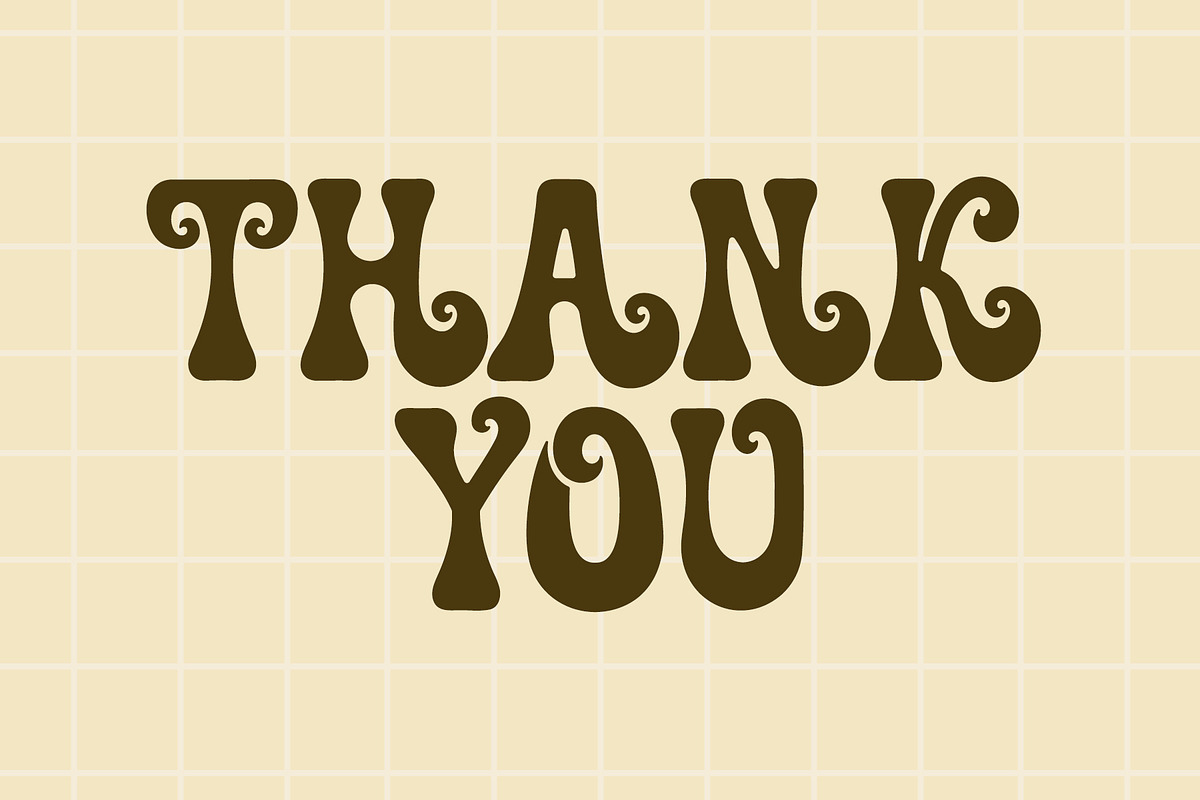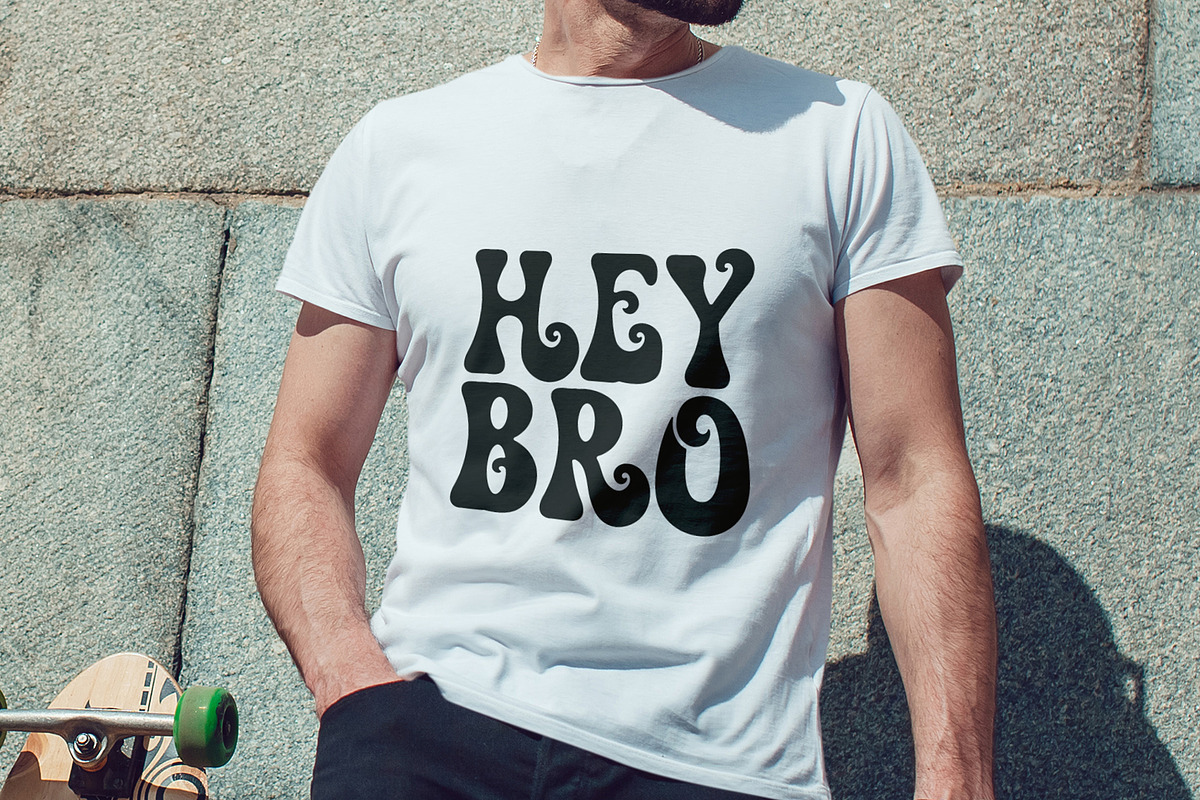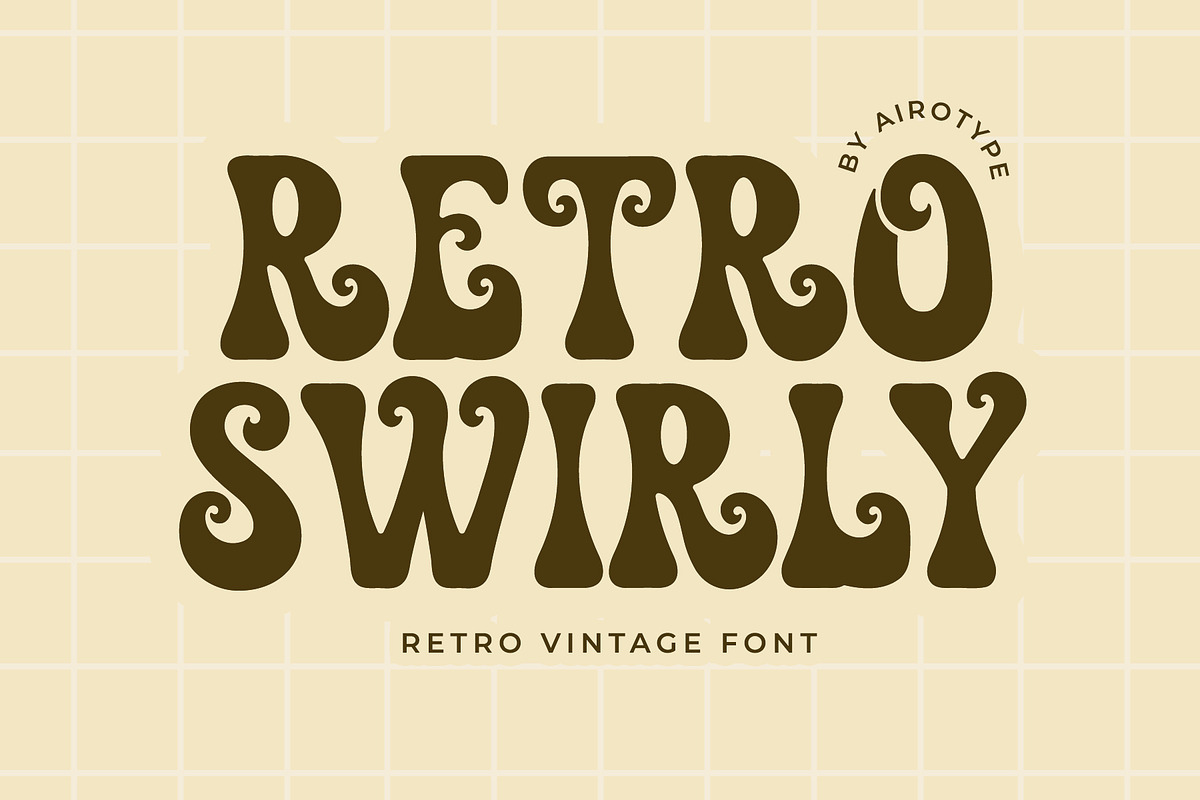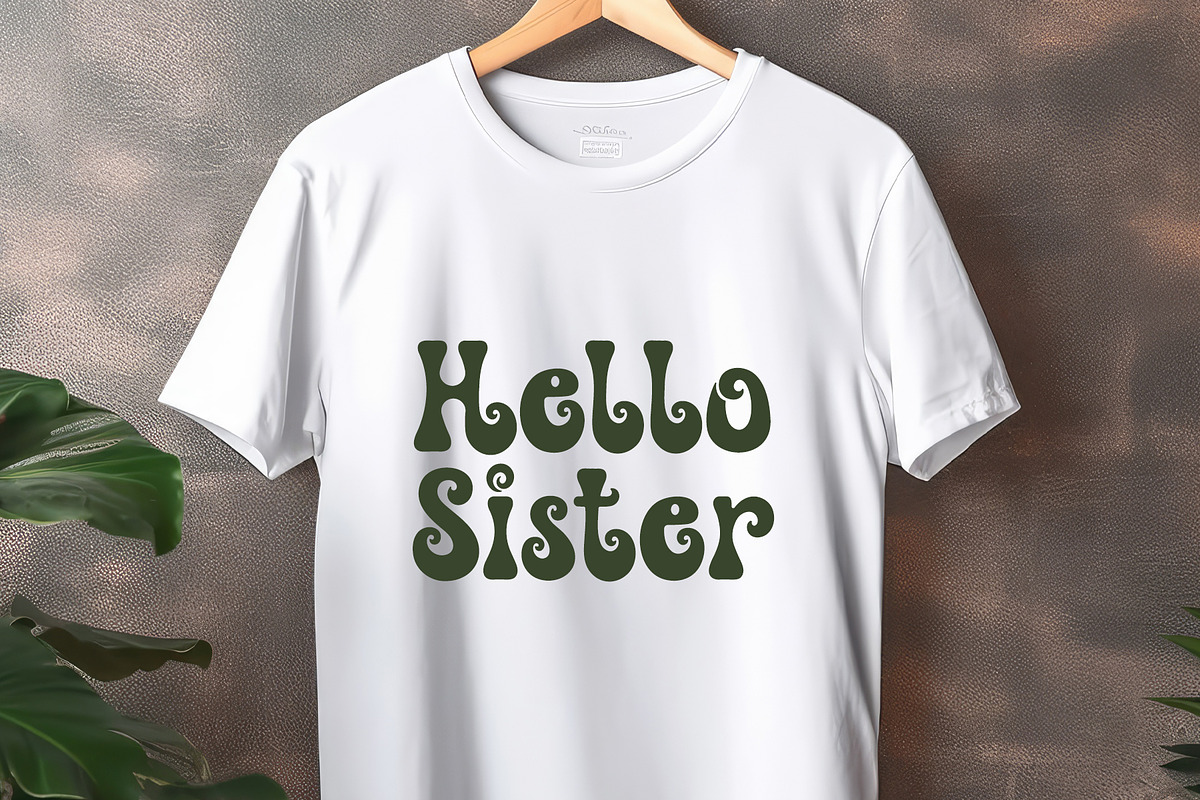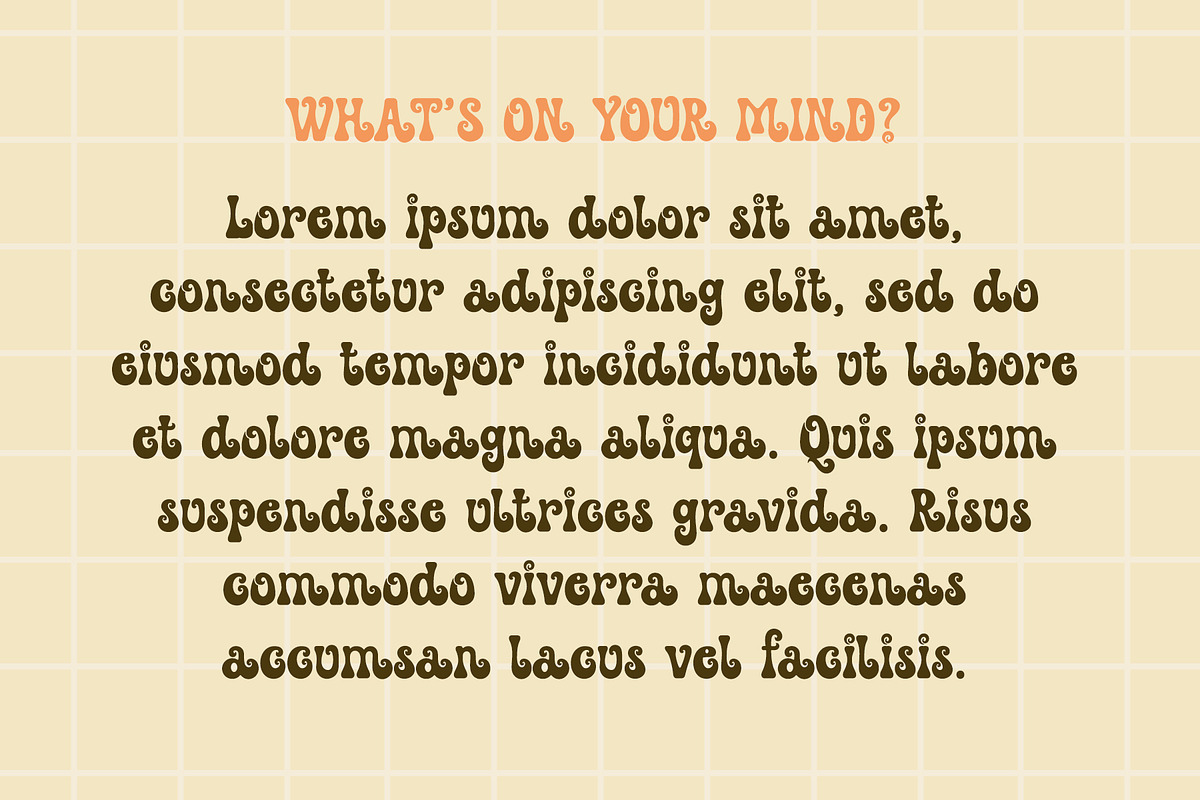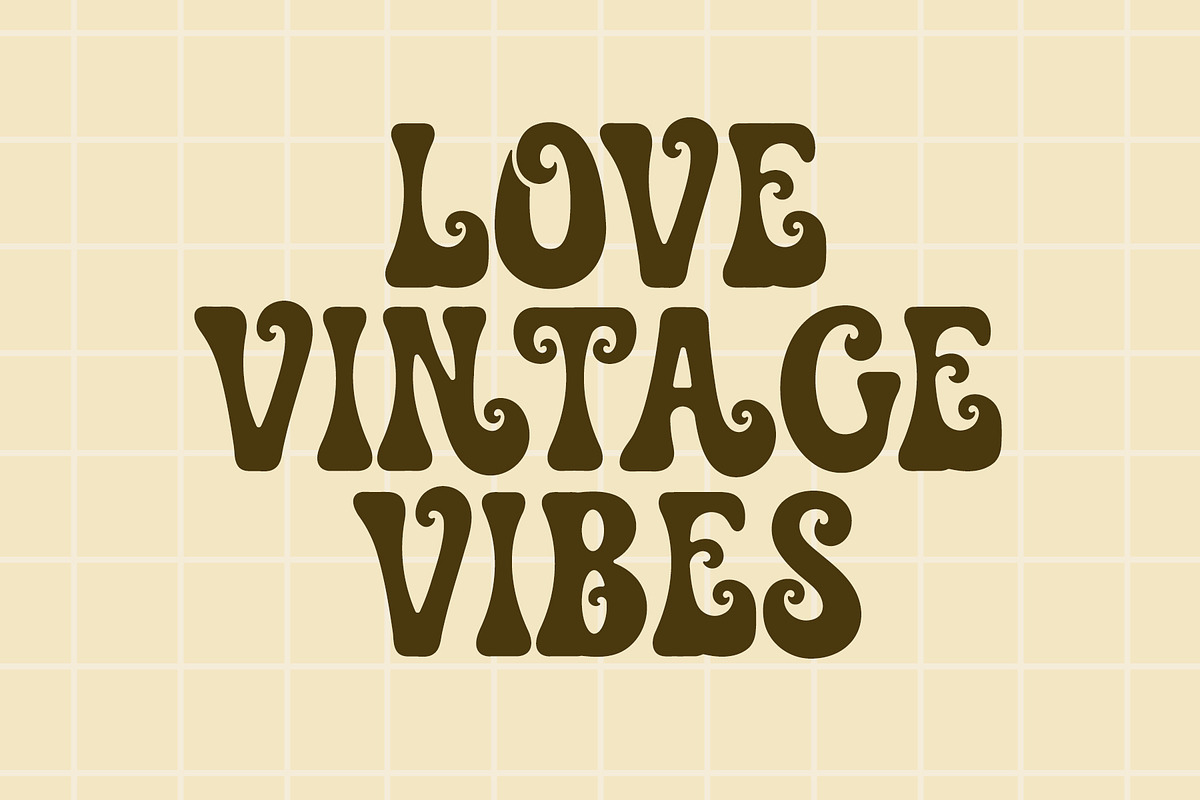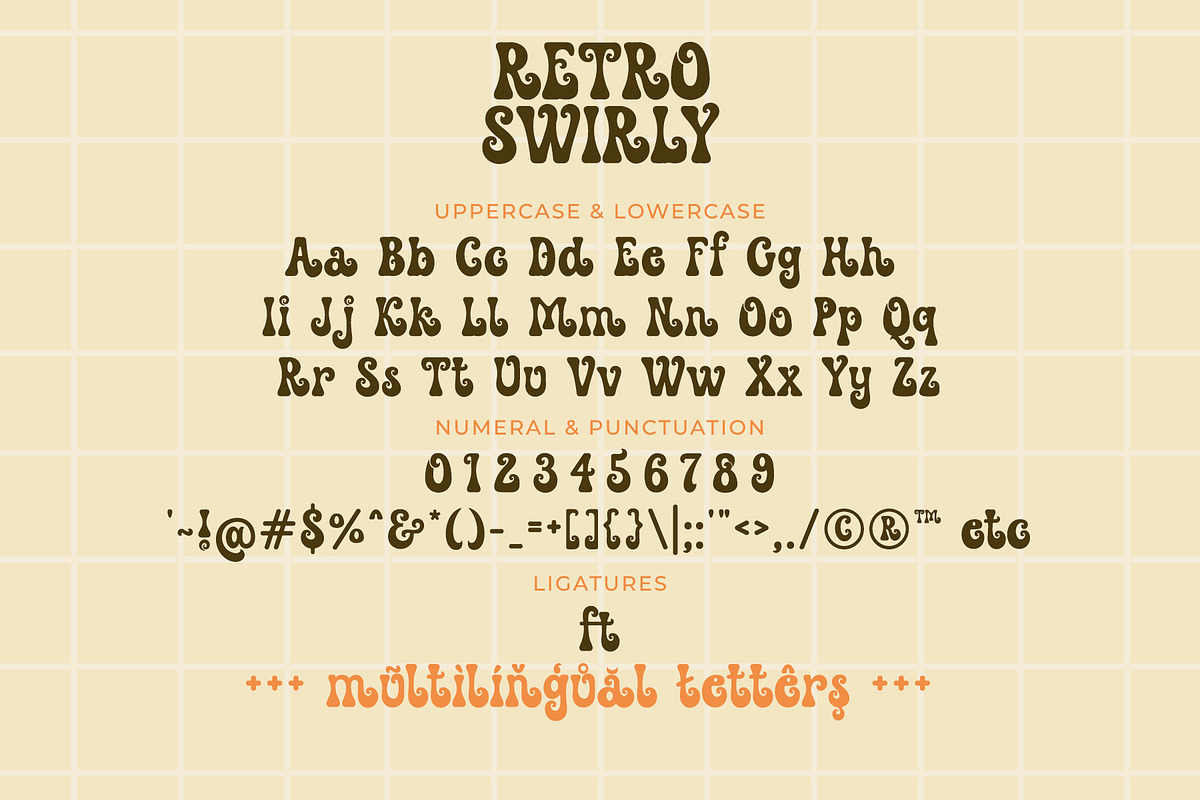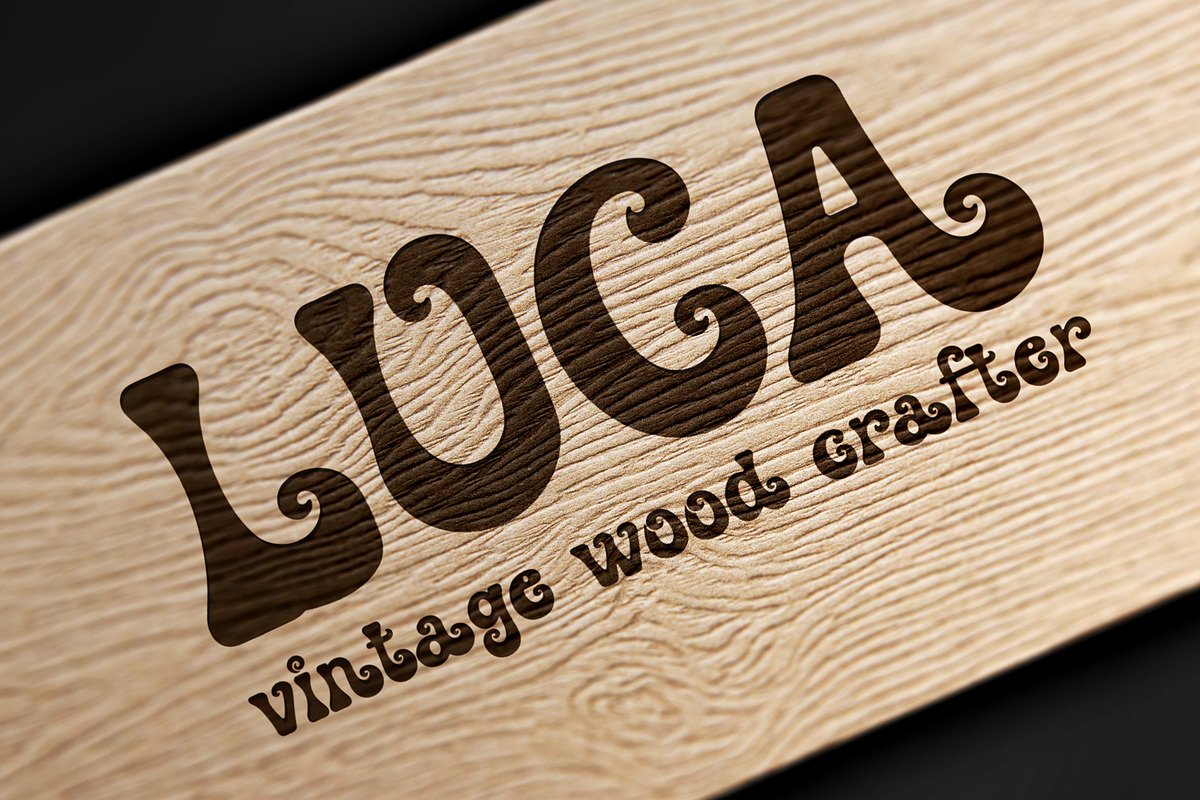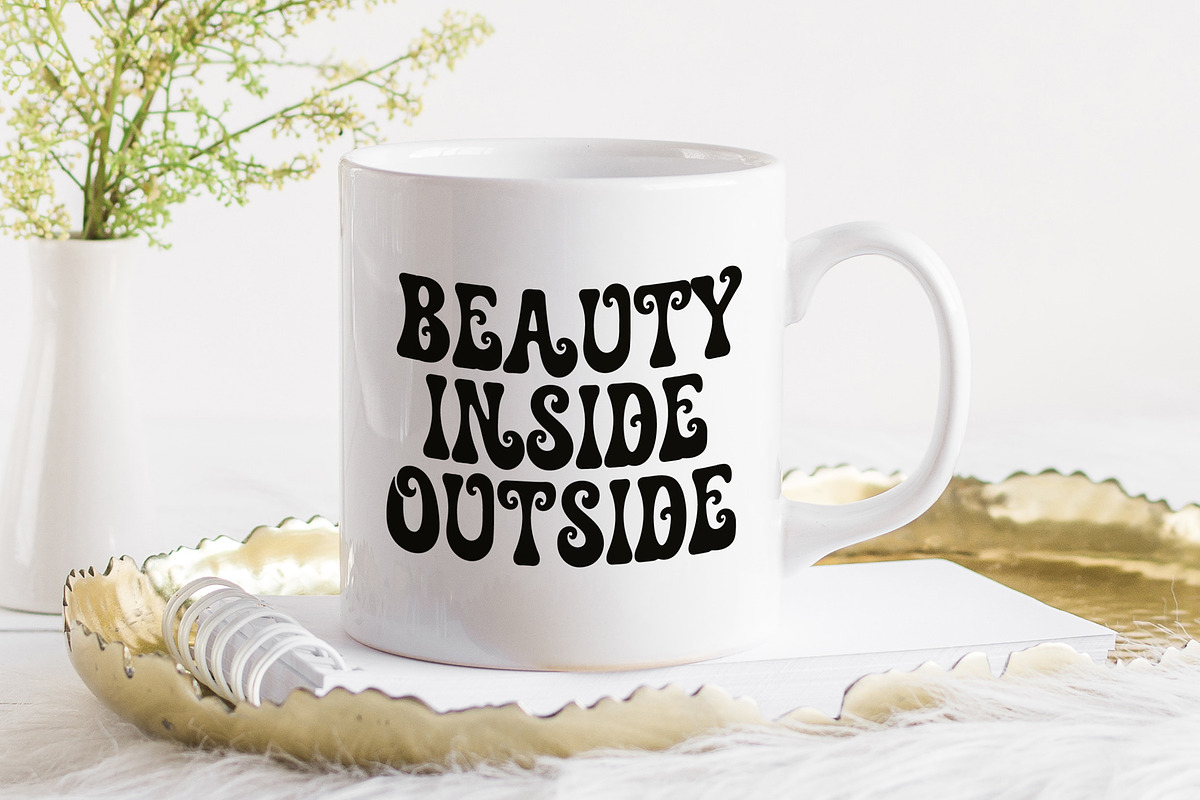
Retro Swirly - Elegant Vintage Font
Retro Swirly is elegant vintage font. It represents 70s style with modern touch with its swirl. It is bold, groovy, and bubbly.
Retro Swirly is beautiful font for any projects with elegant and retro vintage style, such as logo, crafting, t-shirt, branding, sticker, sublimation, quotes, greeting cards, and many more.
- Most Multilingual Accent